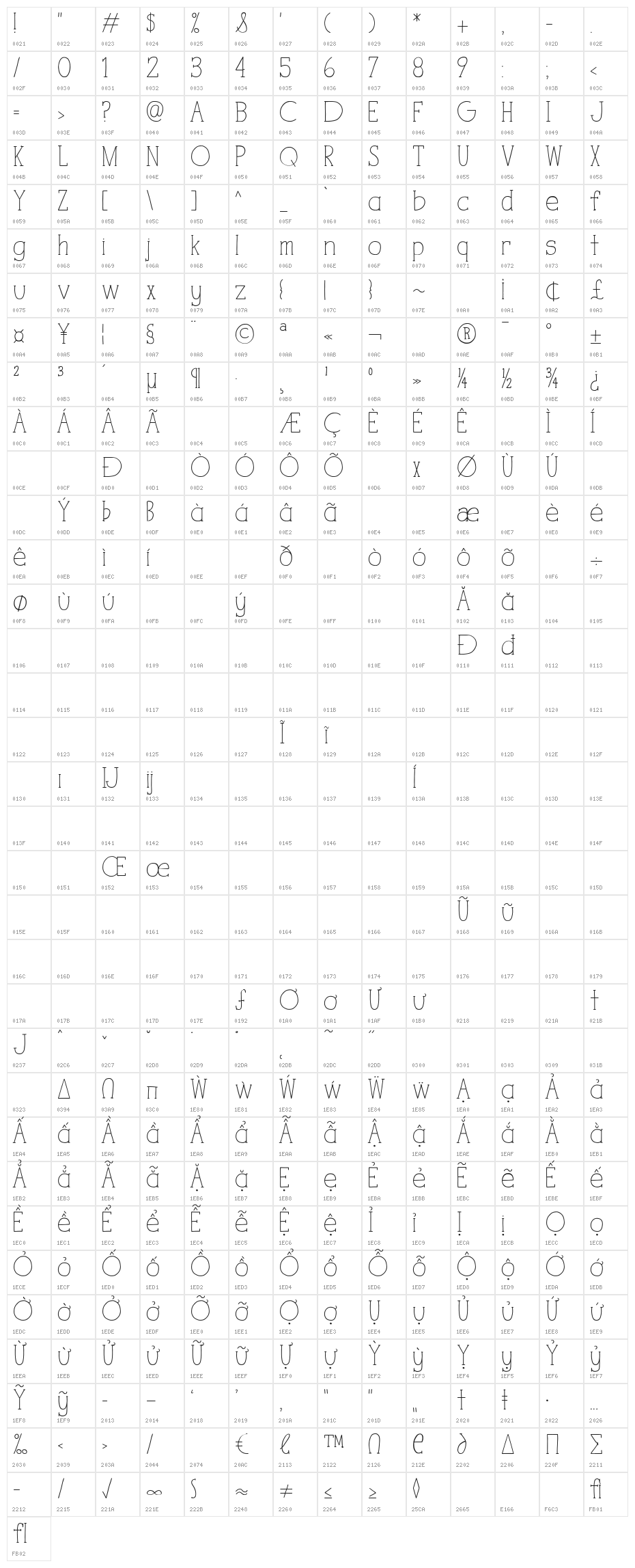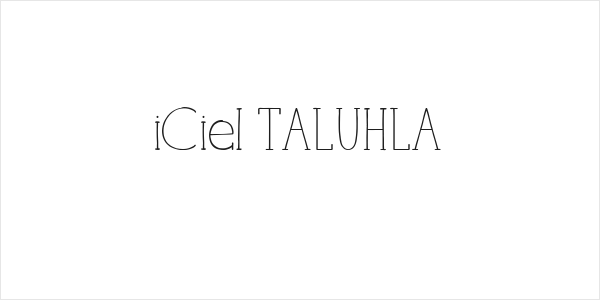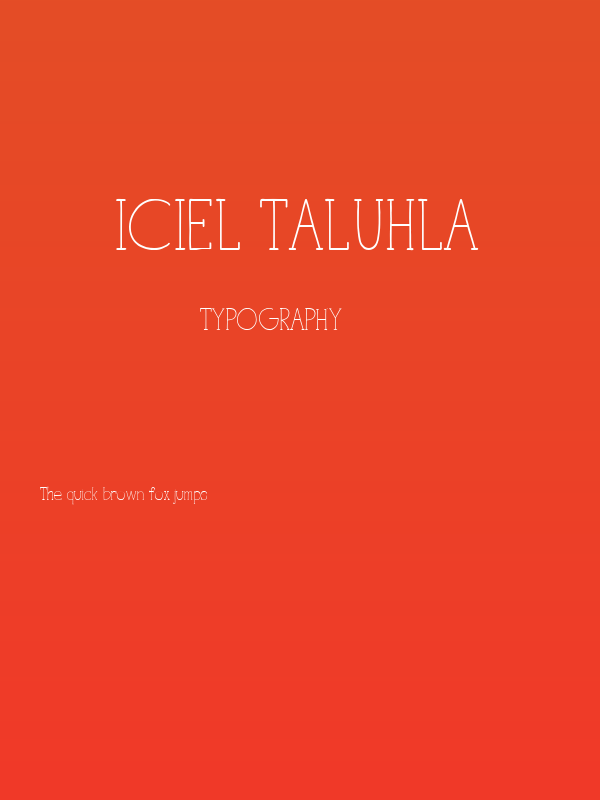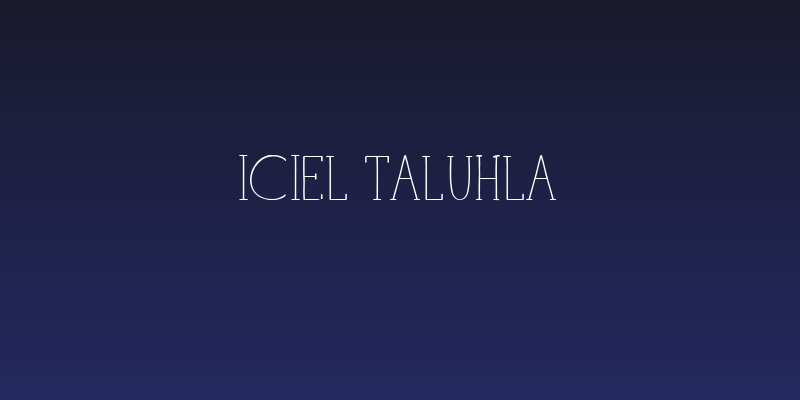
iCiel TALUHLA Font
iCiel TALUHLA Description
This font features a whimsical and playful design with a handwritten aesthetic. The characters are tall and narrow, with a slight irregularity that adds charm and personality. The uppercase letters are distinct with a slight tilt, while the lowercase letters maintain a consistent flow. Numbers are clear and legible, matching the playful style of the alphabet. Special characters are creatively designed, fitting seamlessly with the overall look. This font exudes a sense of fun and creativity, making it suitable for projects that require a personal touch.
| Overall Style | Playful, Creative |
| Use Case | Headlines, Creative projects, Invitations |
| Proposed Projects | Ideal for children's books, creative invitations, playful branding, and artistic posters. |